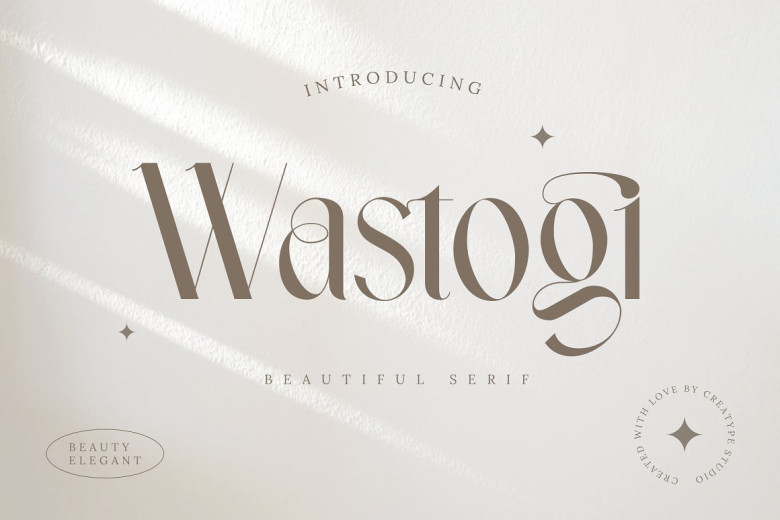
Wastogi Font
Wastogi is an elegant and contemporary Serif font that features intricate details to create an enchantingly modern typeface. Perfect for logos, weddings, social media posts and advertisements; also suitable for product packaging design labels photography watermarks invitations stationery other projects needing handwriting style font.
Wastogi Serif Font